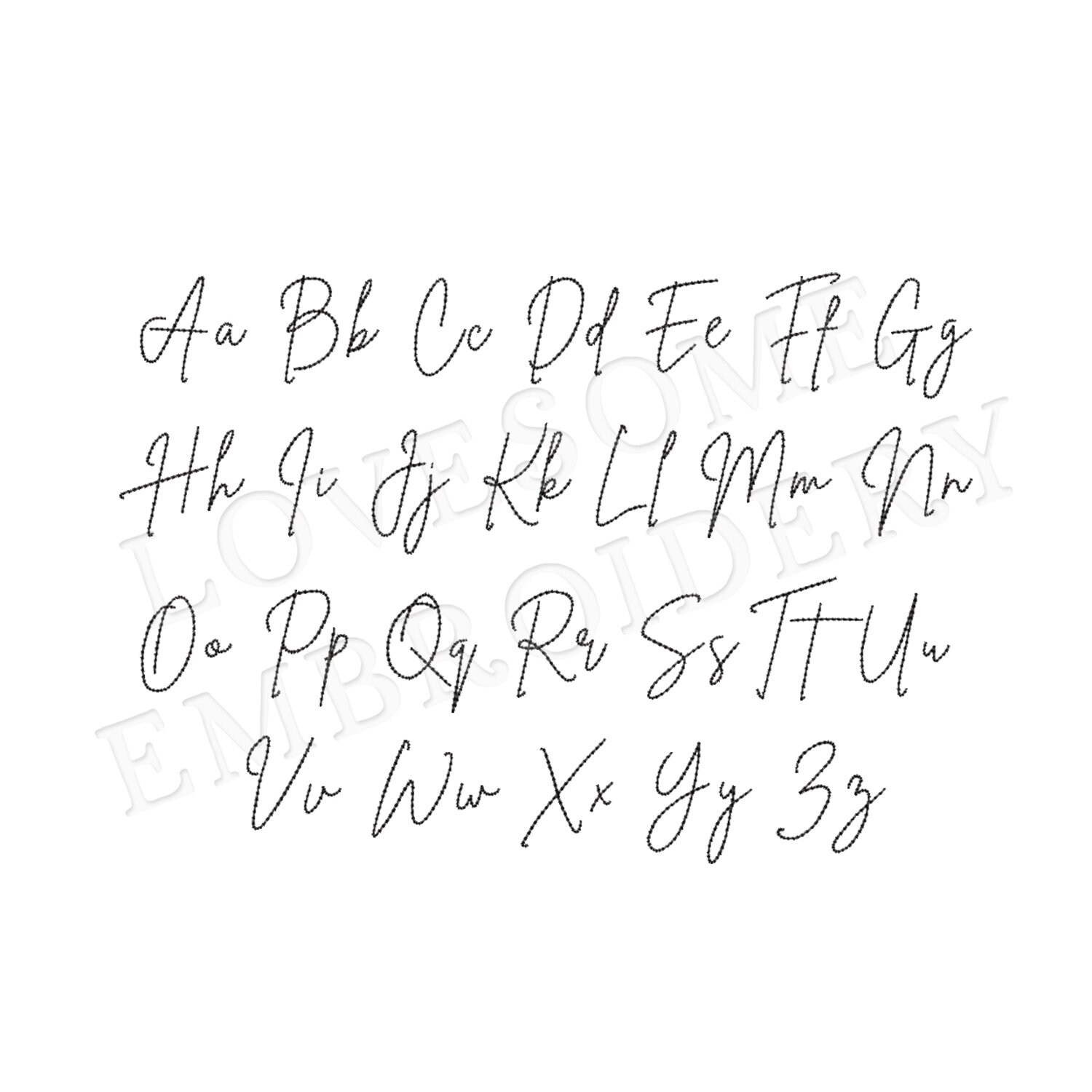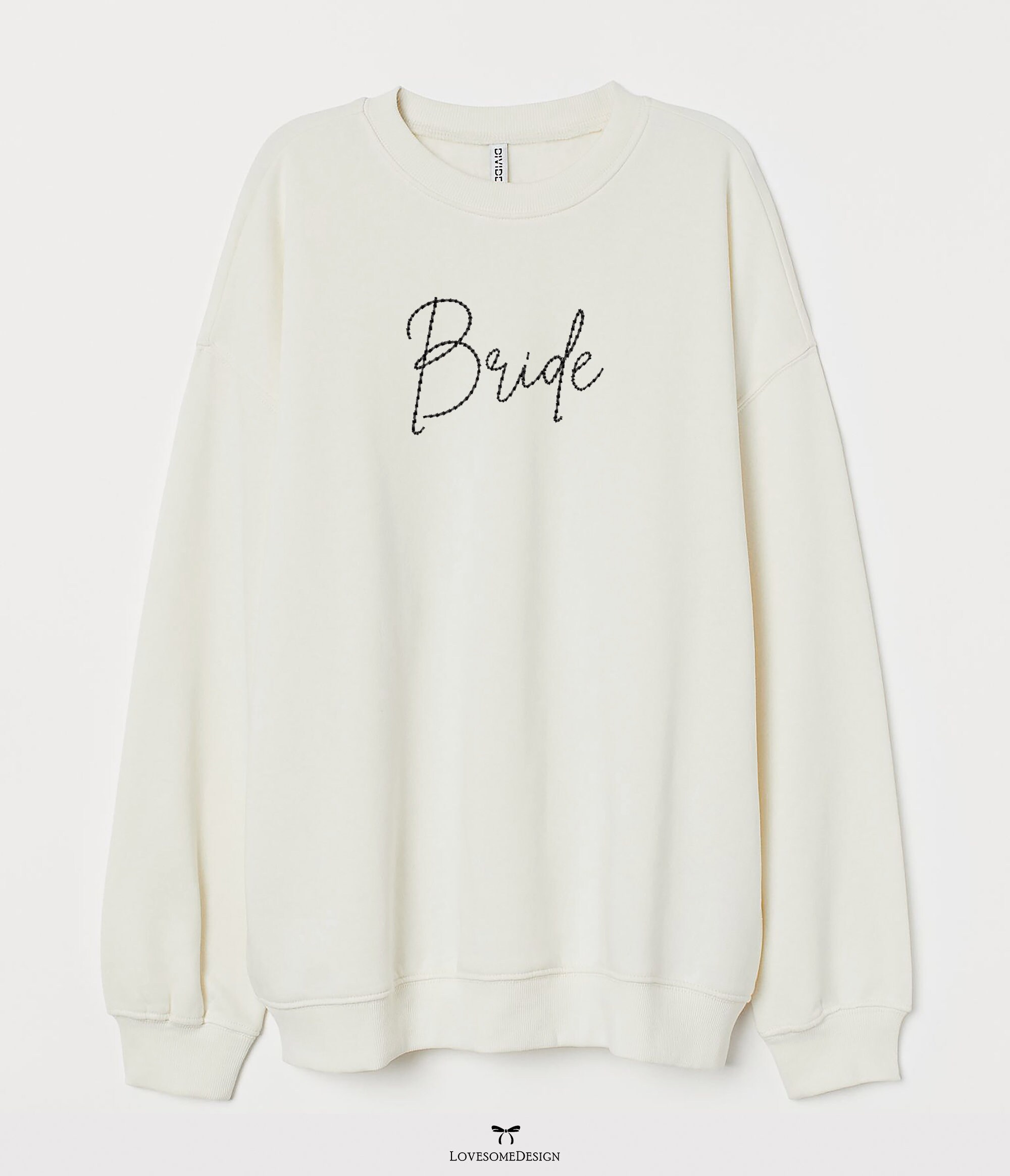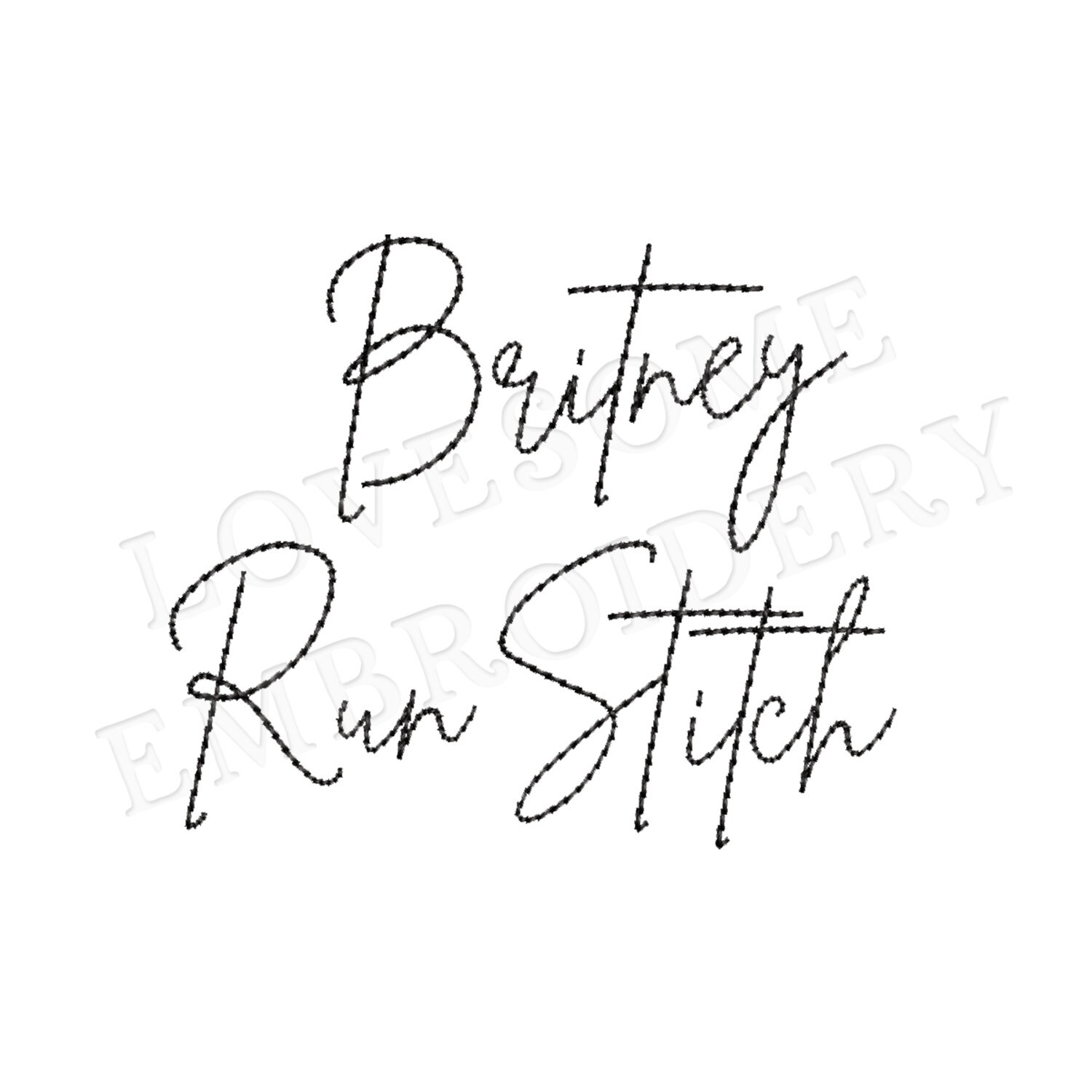
Britney Script 4inch Bean Stitch Font A-Z, Cursive Run Stitch Font, Machine Embroidery Font Digital Download | Lovesome Design
This listing features a machine embroidery font set which includes bean stitch embroidery files of 26 uppercase and 26 lowercase letters in 4inch size. (For the whole set, pls see the listing images.)